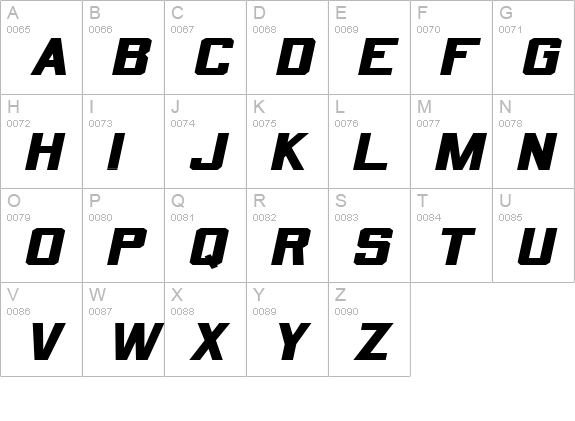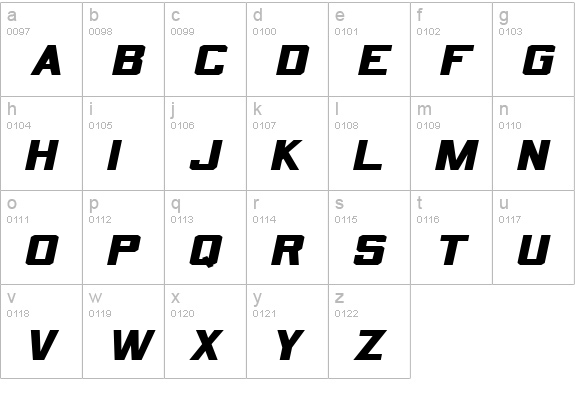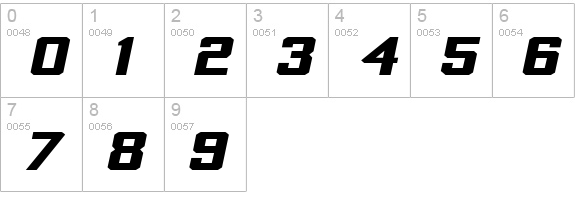
QuarterbackExtended Oblique Font Details
QuarterbackExtended Oblique is a distinctive, italic variant in the QuarterbackExtended typeface family \xE2\x80\x94 well suited to design and typography projects.
QuarterbackExtended Oblique font is a mesmerizing display font that exudes a sense of power and elegance. With its sleek and slanted letterforms, this font brings a unique and dynamic energy to any design project. Whether you're working on a sports-related design, a branding project, or a creative advertisement, QuarterbackExtended Oblique font will surely make a bold statement. Its strong and confident appearance commands attention, adding a touch of sophistication to your creations. The distinctive slant of this font adds a sense of motion and excitement, making it perfect for capturing the attention of your audience. Each character is meticulously crafted, with clean lines and sharp edges, ensuring a visually pleasing and legible result. One of the most remarkable aspects of QuarterbackExtended Oblique font is that it is freely available to download at FontsMarket.com. This means that you can easily access and enjoy this incredible font without breaking the bank. Whether you're a professional designer or a hobbyist, this font offers a high-quality solution that won't cost you a dime. Don't miss the opportunity to elevate your designs with QuarterbackExtended Oblique font. Download it for free at FontsMarket.com and discover the endless creative possibilities it brings to your projects.